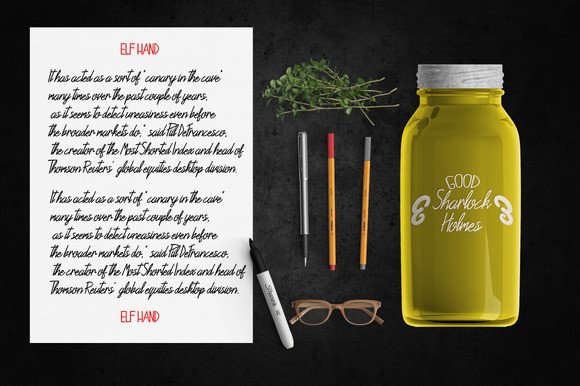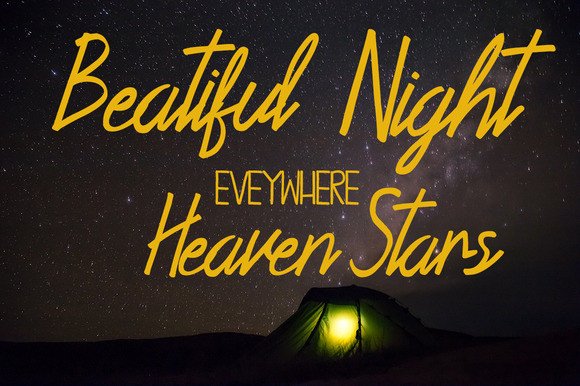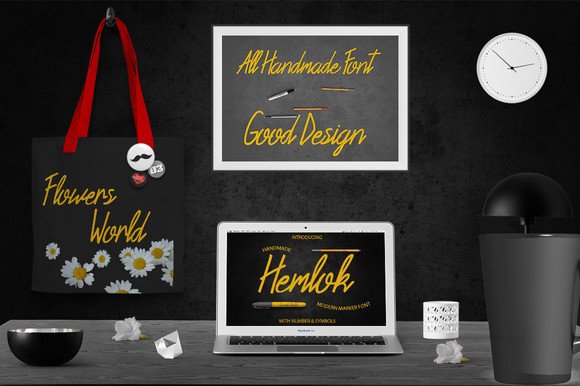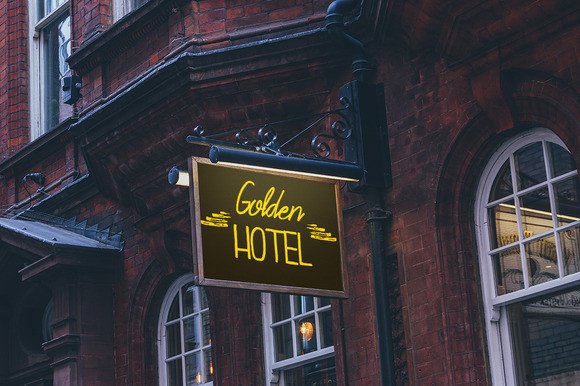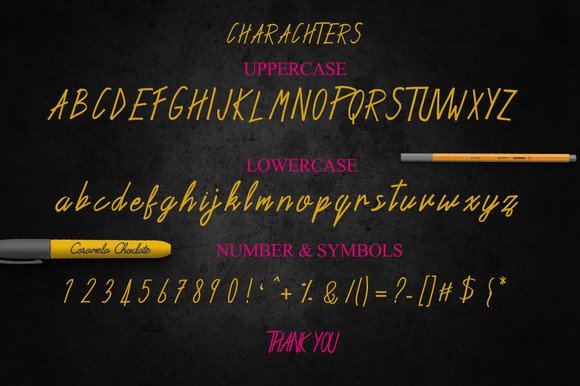
Introduction to Hemlok Font
Have you ever been working on a creative project, and the right font just eludes you? You’ve tried countless combinations, but nothing seems to fit the vibe you’re going for. This is where the Hemlok Font comes in – a modern marker font designed to bring your ideas to life.
Whether you’re a seasoned designer or a DIY enthusiast, the Hemlok Font is an incredibly valuable resource. With its high-quality design and transparent background, it’s perfect for creating eye-catching posters, t-shirts, and labels. And the best part? It’s available for free download, making it an accessible design resource for anyone.
- Unique characteristics include a modern and elegant design, making it perfect for a wide range of creative projects.
Honest Review: Hemlok Font
I recently had the chance to work with the Hemlok Font, and I must say it’s been a game-changer for my design projects. ✨ This high-quality font is perfect for any creative project that requires a professional and clean look.
- Wide range of applications: The Hemlok Font is suitable for various design projects, from logos and branding to digital products and marketing materials.
One thing I’d like to see improved is the limited character set. ⚠️ While the font is great for headings and titles, it’s not as versatile when it comes to body text. However, for most design projects, this shouldn’t be a major concern.
Overall, I’m thoroughly impressed with the Hemlok Font. Its high-quality design, free download, and versatility make it an excellent addition to any designer’s toolkit. If you’re looking for a reliable design resource, I highly recommend giving the Hemlok Font a try.
The Hemlok Font is perfect for a variety of use cases, including logos, social media graphics, business cards, and presentations. Its modern look and feel make it ideal for creative projects that require a bold and eye-catching design resource.